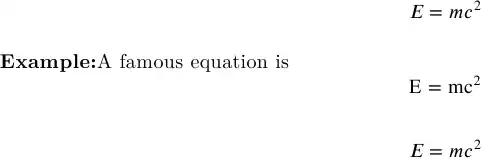
Within a larger document with lots of formulas, I use a self-defined "Example" environement for illustrational purposes from time to time. In order to better set it apart from the rest of the text, I have decided to use another font family within those example surroundings.
But - and here's my problem - the code I use only changes the text font. How can I use another math font for the formulas within the defined enviromenent?
Edit: More details regarding my question. Let me illustrate it with an example:
I hope this clarifies (rather than confuses) my question.
• It is possible to define math versions (like \boldmath). But if you want a more specific answer you will have to give much more detailed informations about your actual setup. Btw: I don't think that is a good idea to use too much font families in a document. – Ulrike Fischer Mar 30 '11 at 12:44
• You already wrote that you want another font in the example. The question is how exactly should the math look. Which fonts should the letters, the numbers and the various symbols use? Make a small complete document which shows equation in the look you want for your example environment. – Ulrike Fischer Mar 30 '11 at 13:03
• @Ulrike: Right, sorry. Now I get it. Basically, I'm not picky as to the exact font type I want to use. Ideally, I'll just go for one that is easily accessible, already present in my MikTeX distribution (if such a thing is possible?) and works well with some font type I can choose via the \fontfamily command.
Does an answer to my question depend on which mathfont I want to use? I was hoping for a general solution that does not depend on the precise choice of a certain mathfont.
• A pdf example is not useful. Make a small complete latex document. And no: it is not easy and there is no general solution. You mentioned the family ppl so I suggest that you search for mathpazo.sty on your machine, open it in your editor and look what it does to setup the math. – Ulrike Fischer Mar 30 '11 at 13:32
• I'm not sure using a different font family in this way is a good idea in terms of typography good practice. – Seamus Mar 30 '11 at 17:06
You can do this using the unicode math package. You need to use xelatex or lualatex for this to work (rather than just pdflatex). As a rather simple example, the following switches from italic to upright font within the example environment.
(You need to have the STIX fonts for this particular example to work.) This produces:
changing maths font
For more on the syntax, I recommend that you read the unicode-math documentation. I should also warn you that changing the font several times in a document can slow down the compilation time considerably. It might not, I'm not sure exactly what it is that causes the slow-down, but on some documents where I change maths font a lot then I find that I have to disable the font changing when writing the document and only enable it for the final run.
With the instructions below, only in Example environment the main font (of text and math formulas) will be changed into computer modern sans one.
However, dots and commas are not correct: their output is colon and semicolon because of the position of these digits into the computer modern sans font table. You may correct this error with
although, in my opinion, it still sounds like an "error".